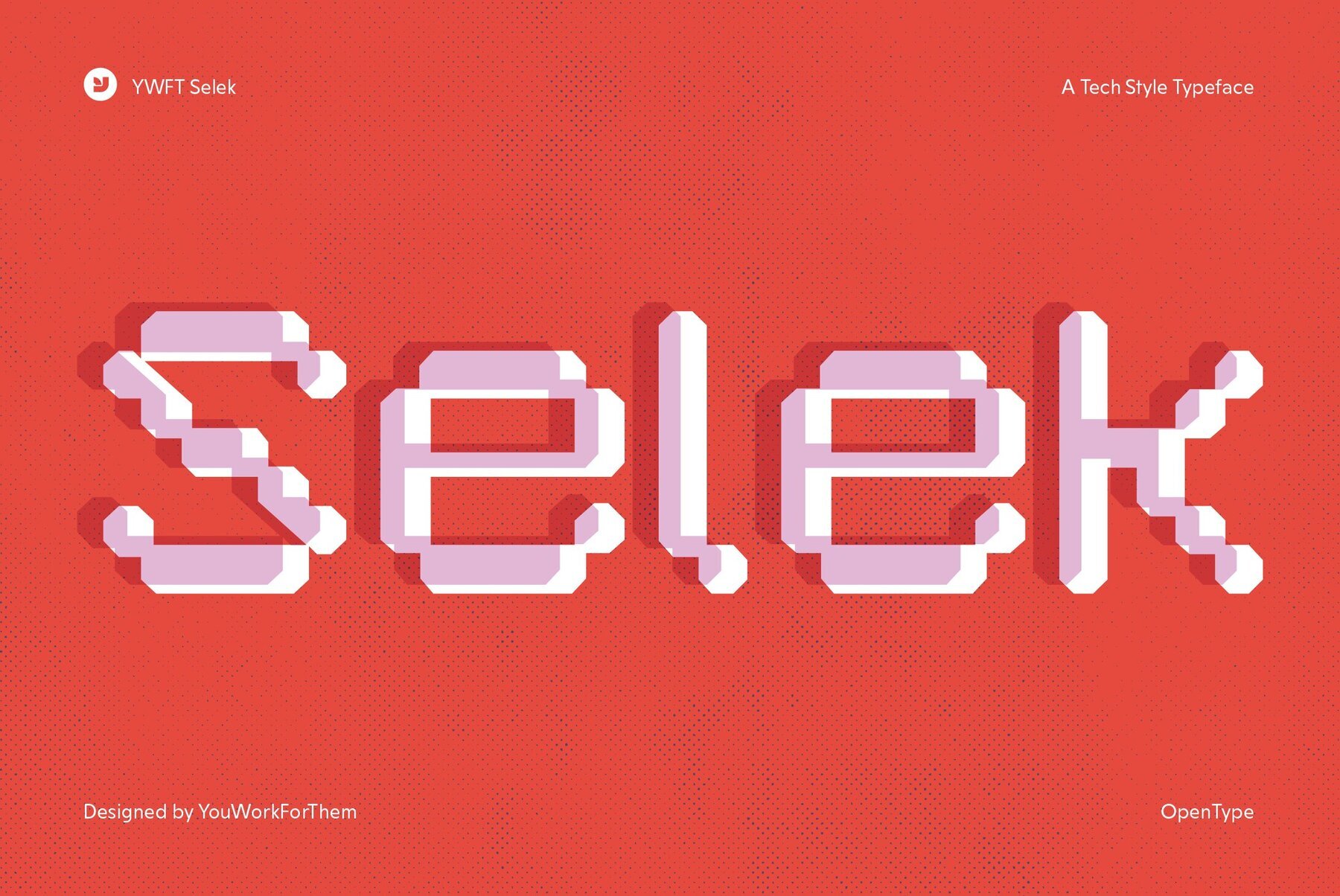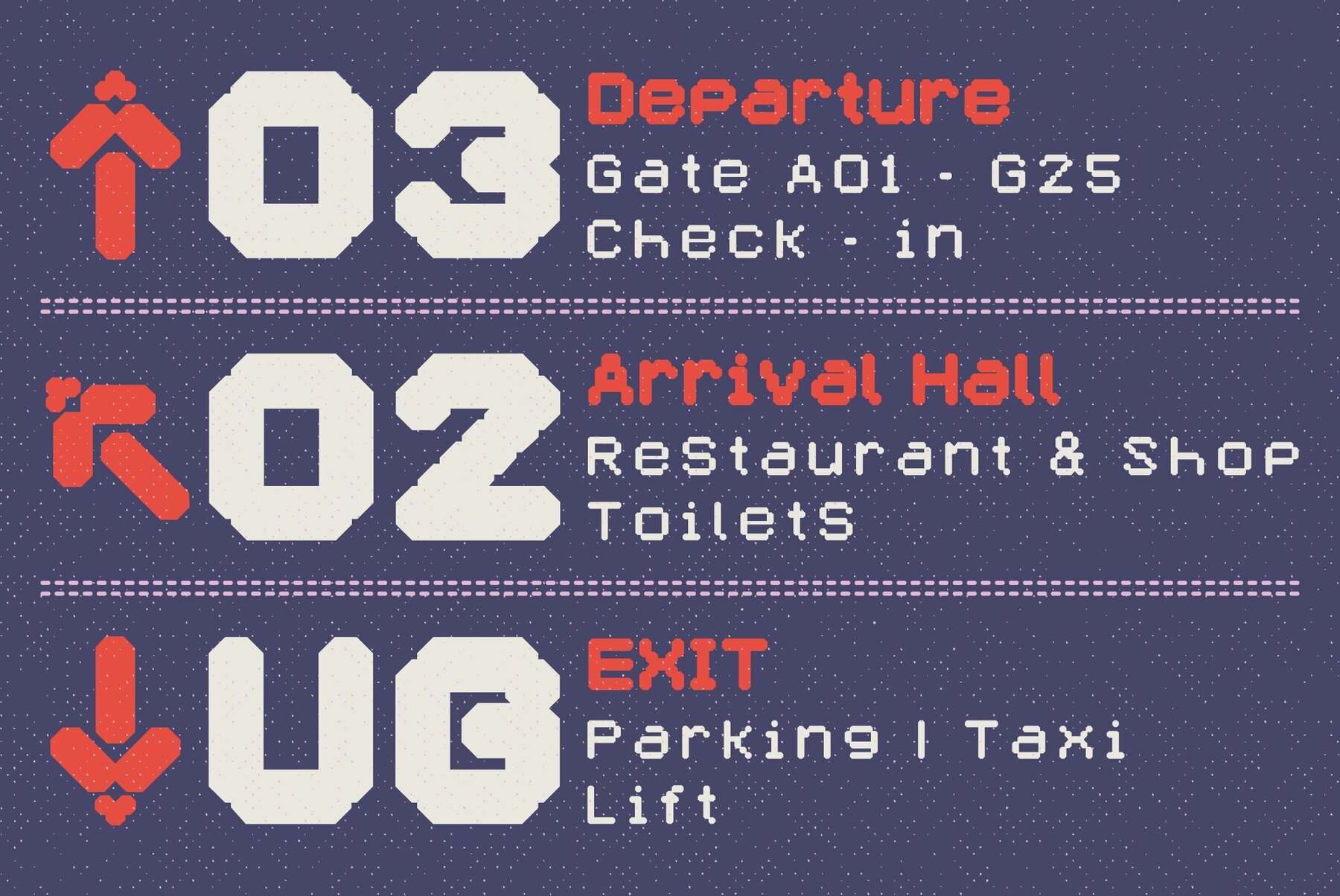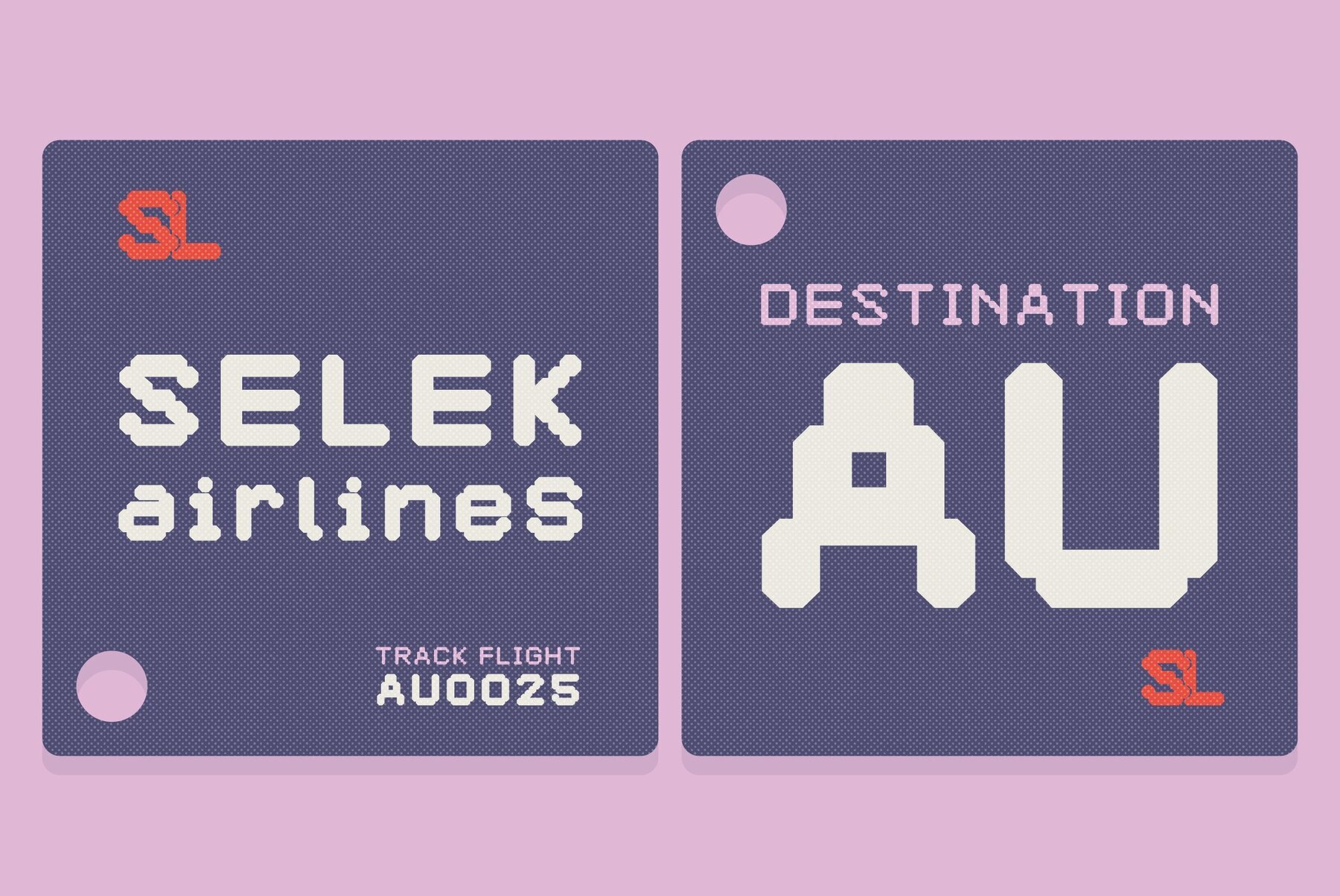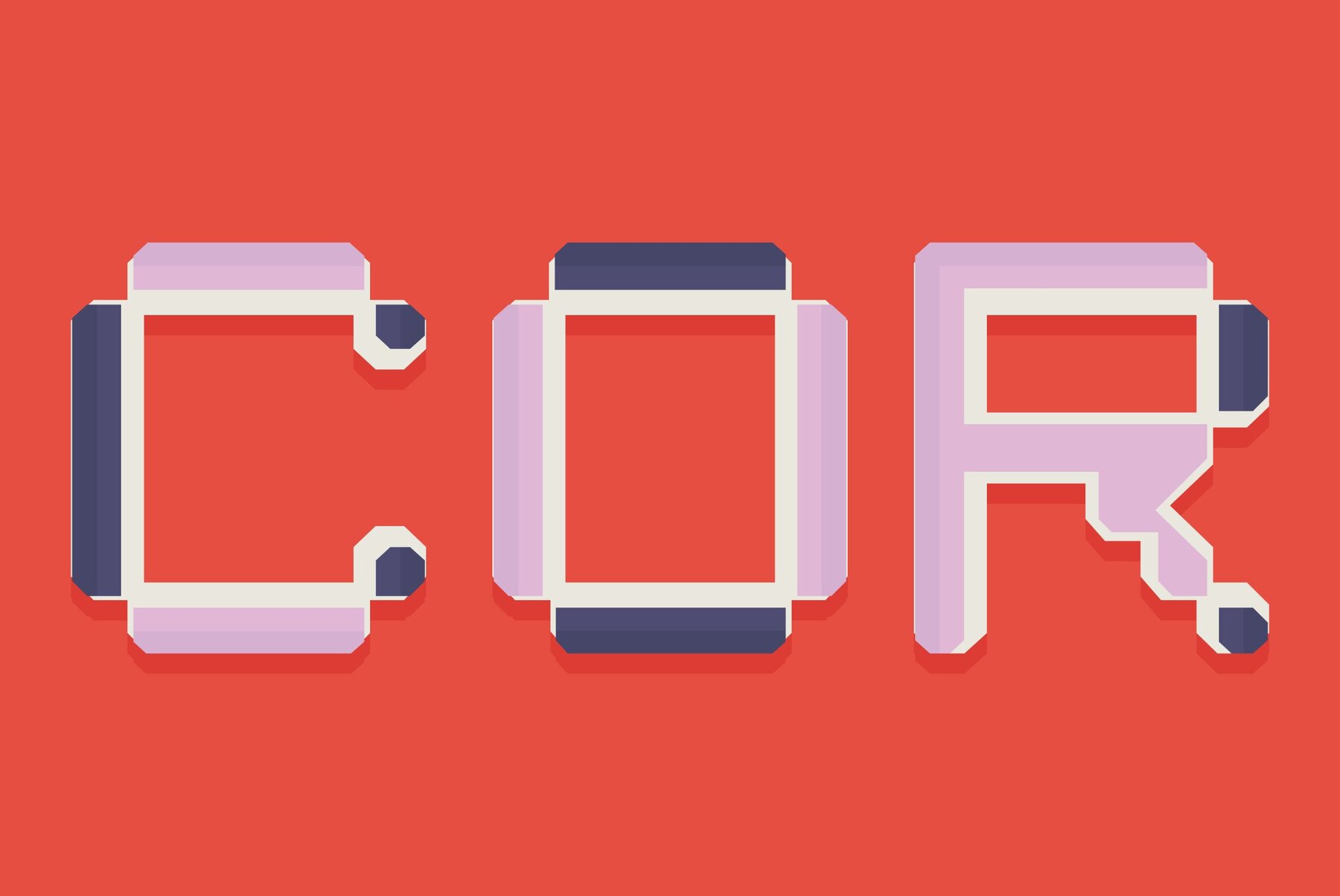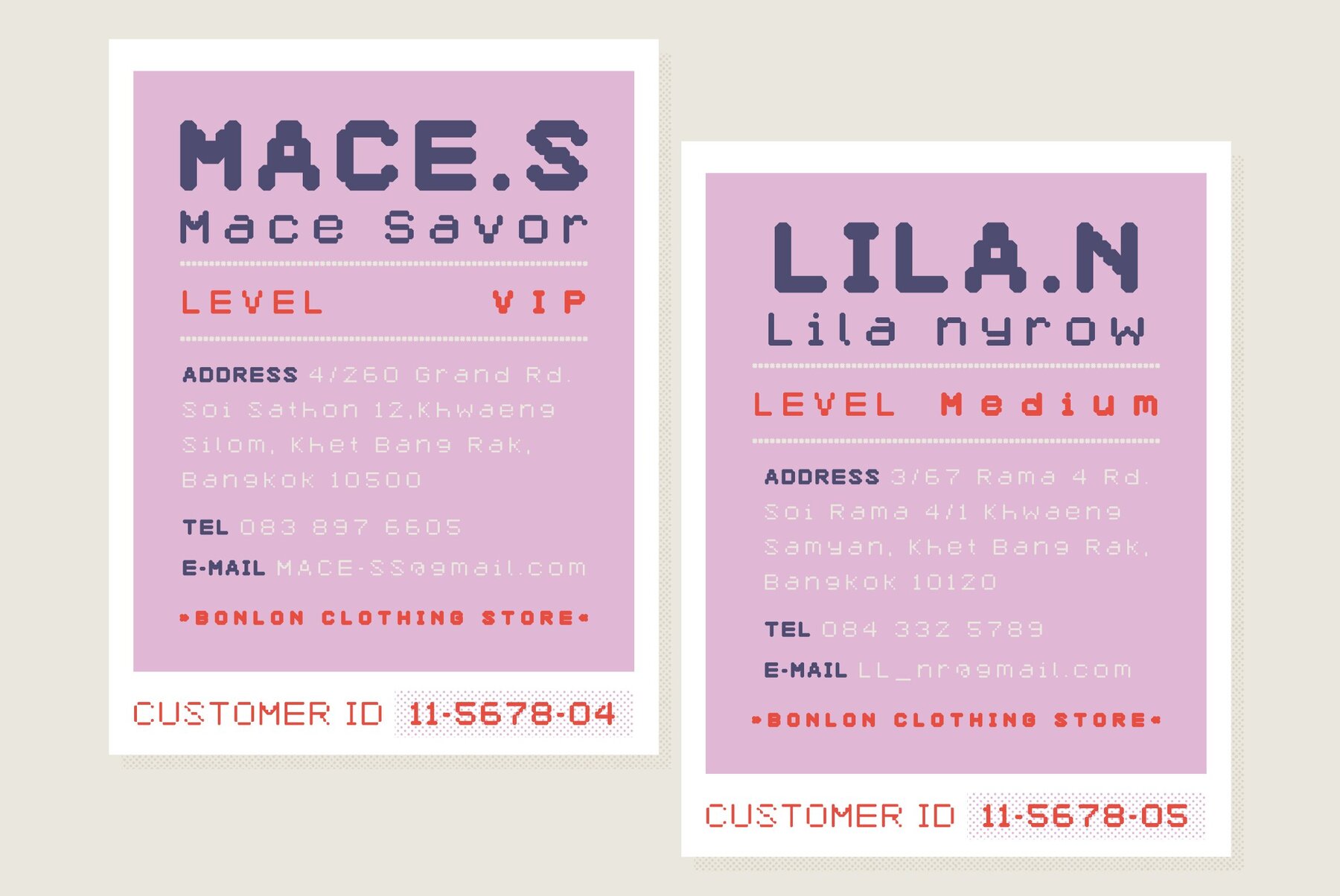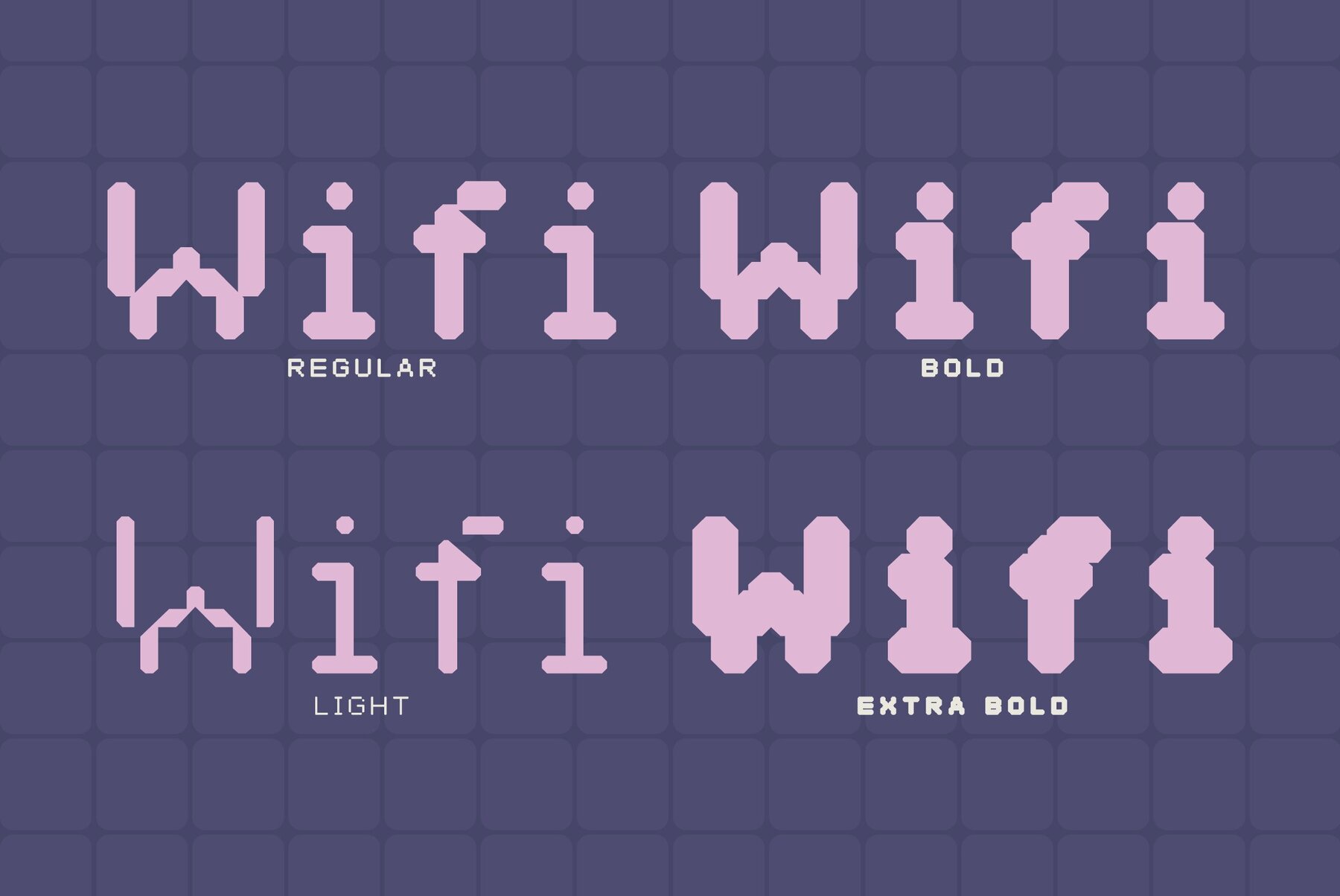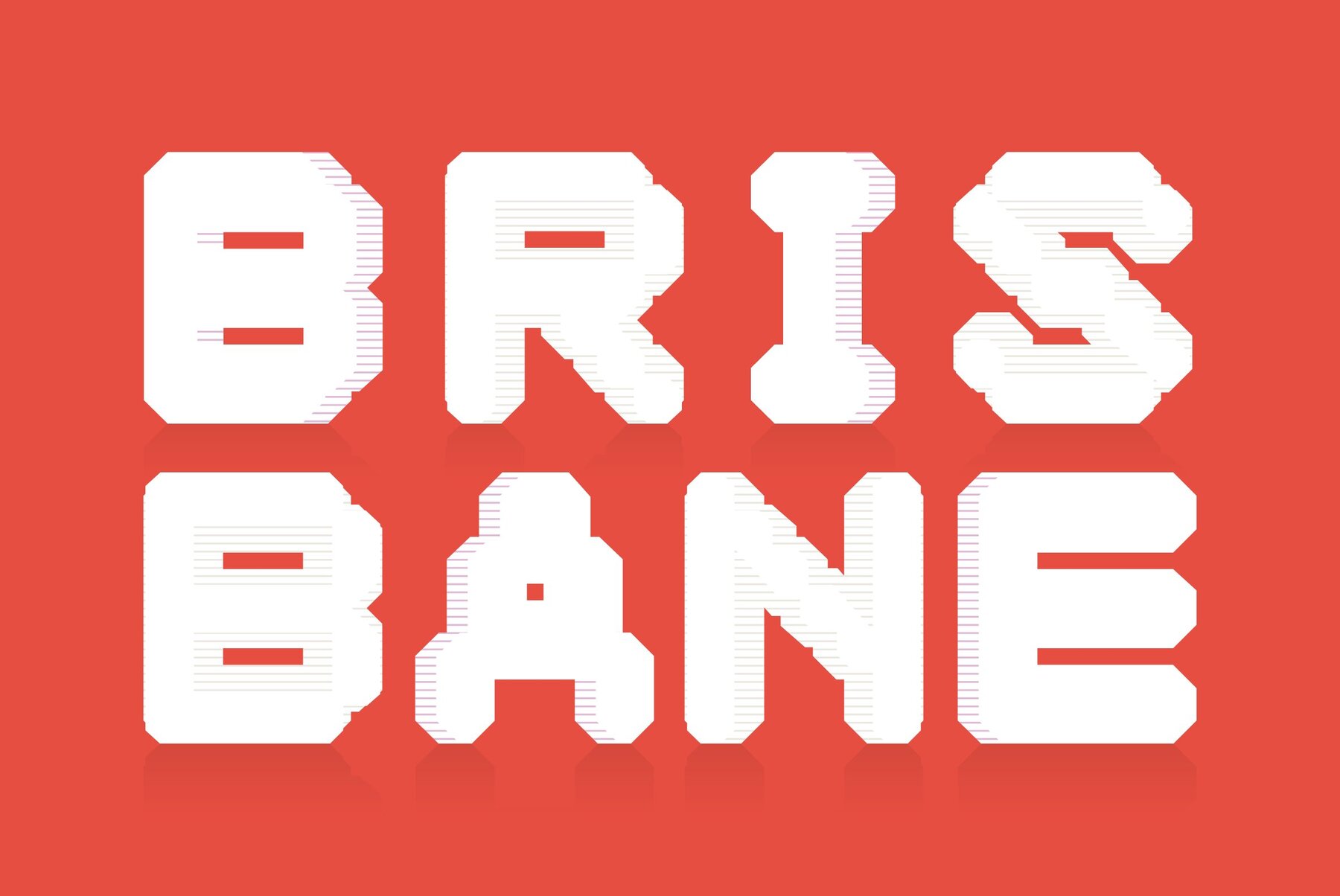
YWFT Selek
For striking, stylishly modern design, Selek(t) something incredible. (See what we did there?) YWFT Selek was designed with the idea of bringing a softer touch to machine-like letterforms, with the final result falling between mechanical and electronic. For legibility it is best to use the Light weight, but when very strong impact is required, the ExtraBold option provides an excellent design solution. YWFT Selek was converted to Opentype format in 2010. Designed exclusively by Michael Cina and YouWorkForThem.